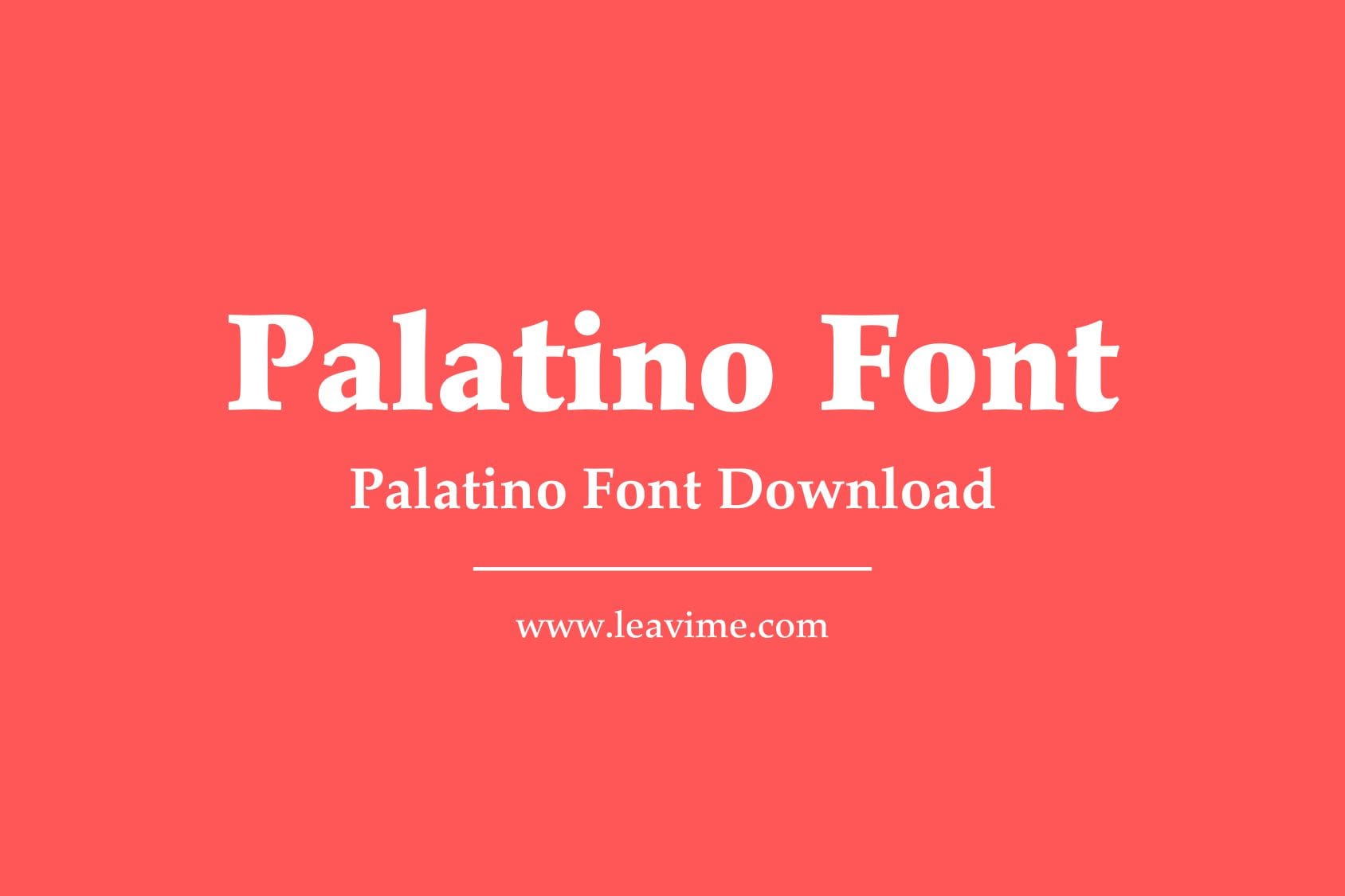
Palatino is a classic serif font designed by Hermann Zapf and first released by Linotype in 1948. Named after Giambattista Palatino, a 16th-century Italian calligrapher, this font is inspired by humanist typefaces from the Italian Renaissance. Its design mimics the flow of a broad-nib pen, giving it a refined and elegant look.
Originally intended for headings, Palatino quickly gained popularity as a body text font, surpassing Aldus Zapf’s recommendations for this purpose.